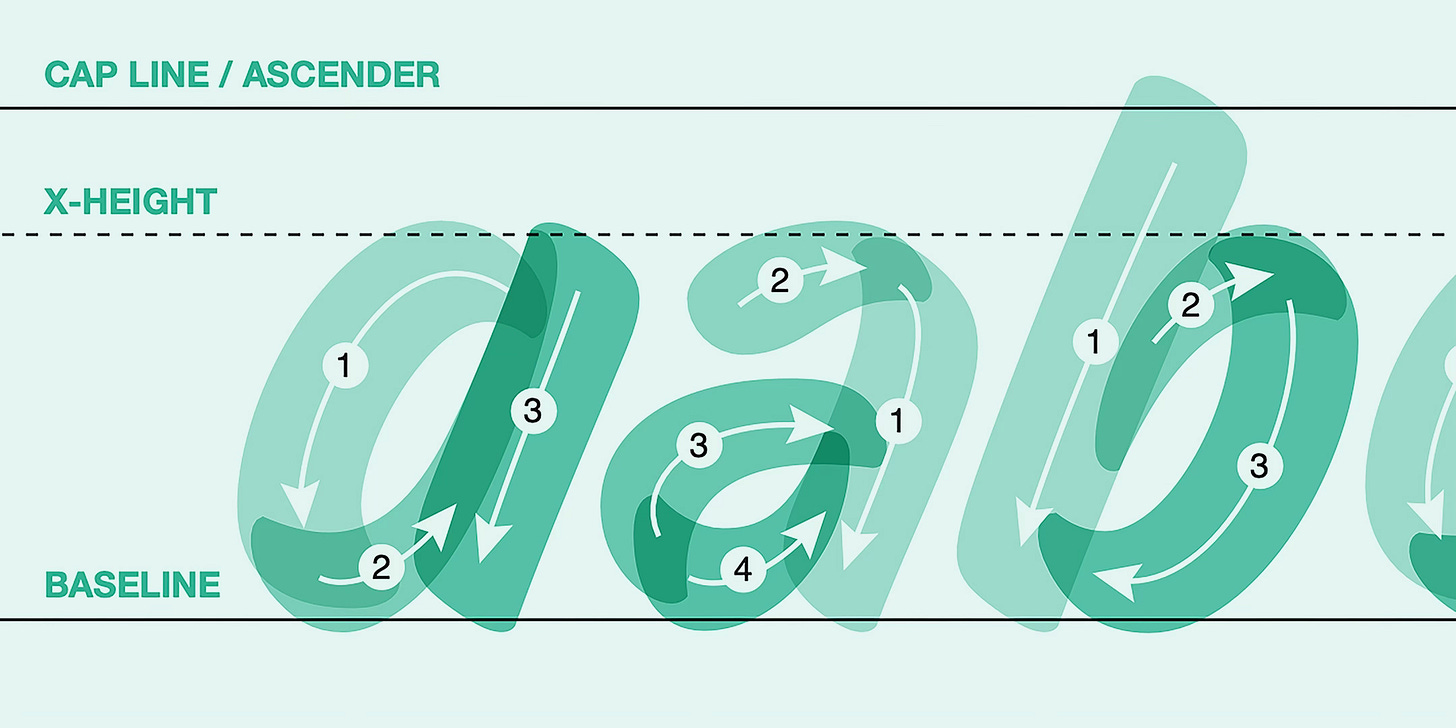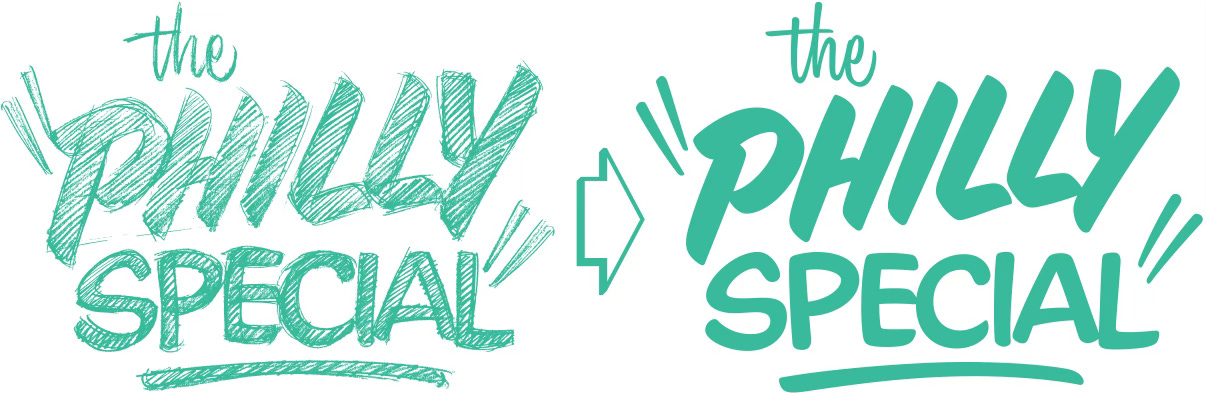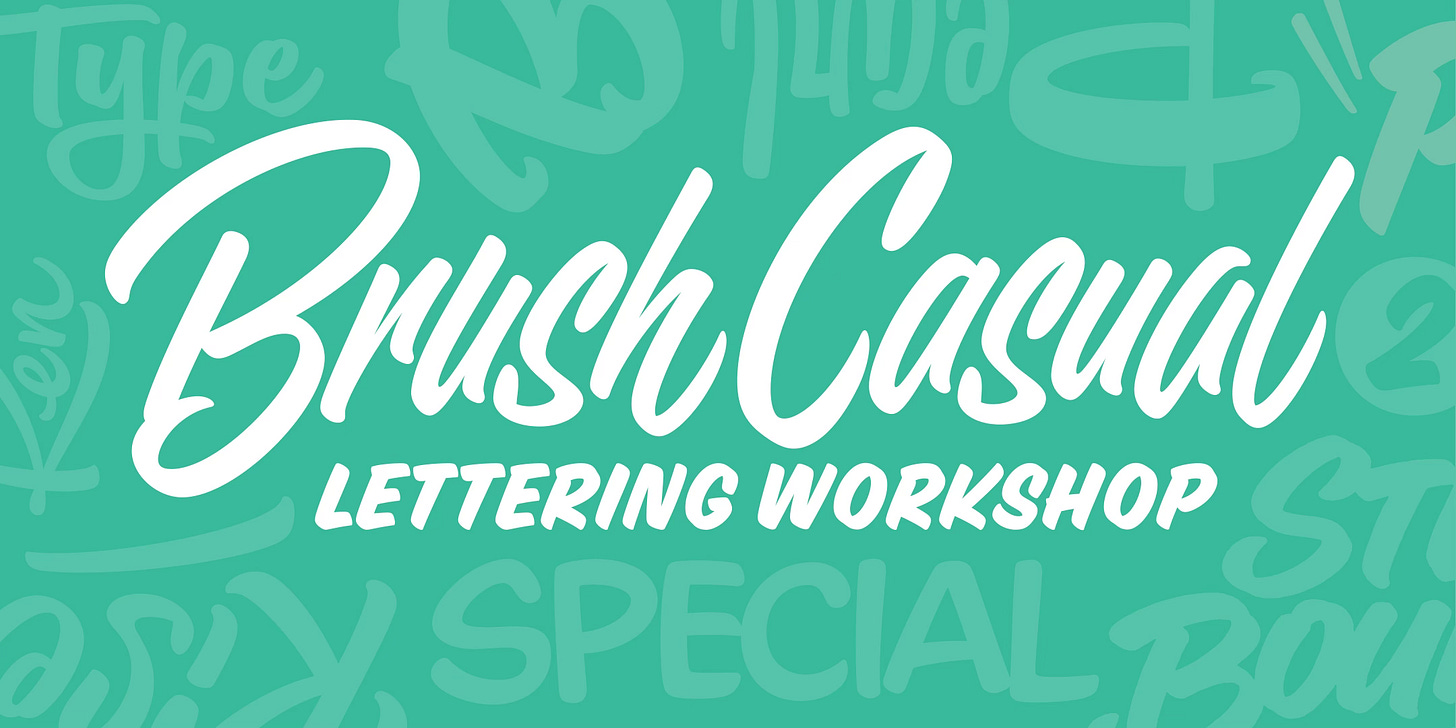
That’s right, after a relaxing summer break, we’re back with our Brush Casual Lettering workshop. In this in-depth, hands-on class, you’ll learn to make convincing brush letterforms—whether you’re using an actual brush or not. Registration is now open!
Brush Casual is the easygoing sans serif sibling of brush script. But don’t let its laid back vibe fool you; this versatile style offers a wide range of forms and flavors that are perfect for producing loads of engaging logos and lettering.
Not only will you learn to create brush casual stroke by stroke, but you’ll also discover my favorite techniques for tweaking letters to craft unique, hand-drawn designs. Plus, you’ll receive a FREE 43-page guidebook, with the option to add a bonus 33-page workbook packed with even more tips and exercises!
Whether you’re just starting out or have been lettering for years, you’ll come away with the skills to put your own twist on Brush Casual letterforms. This workshop only comes around once a year, so don't miss out—register today!